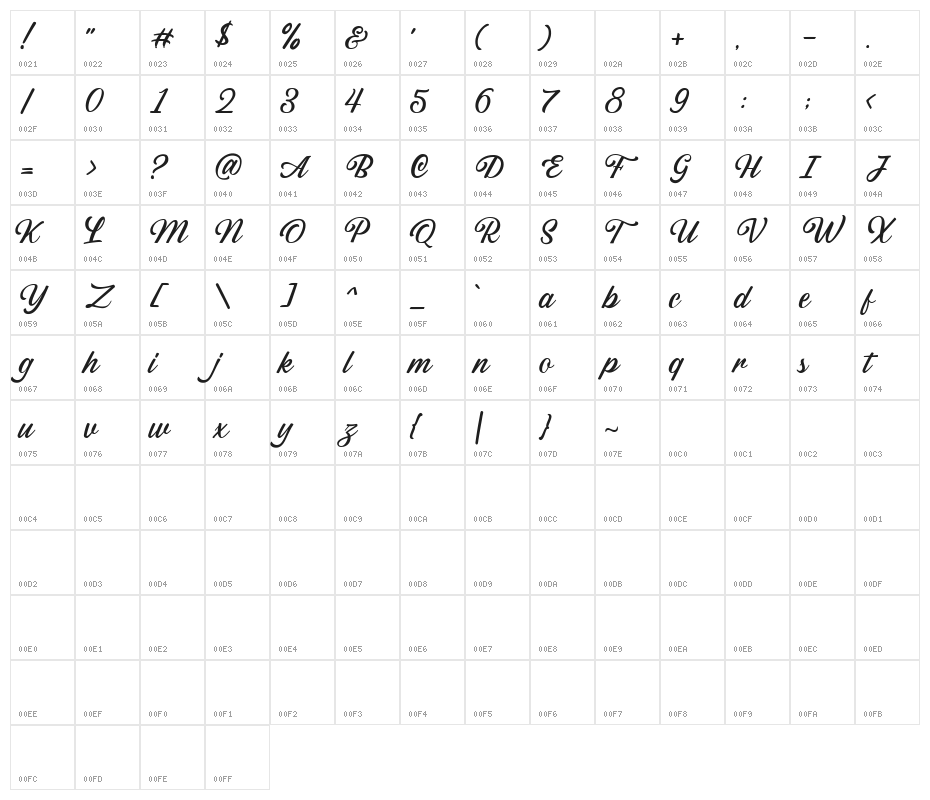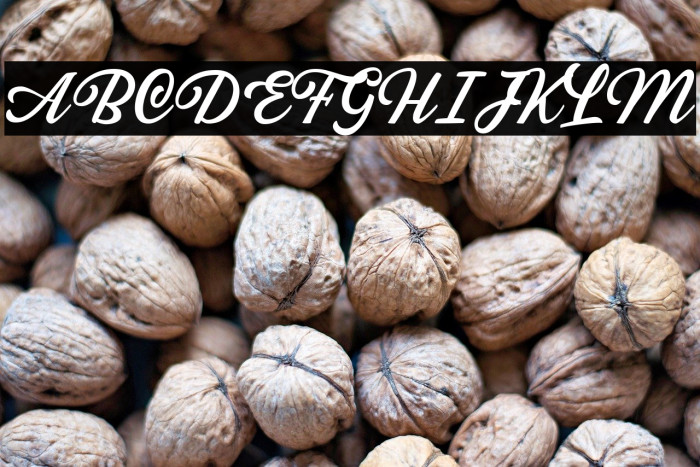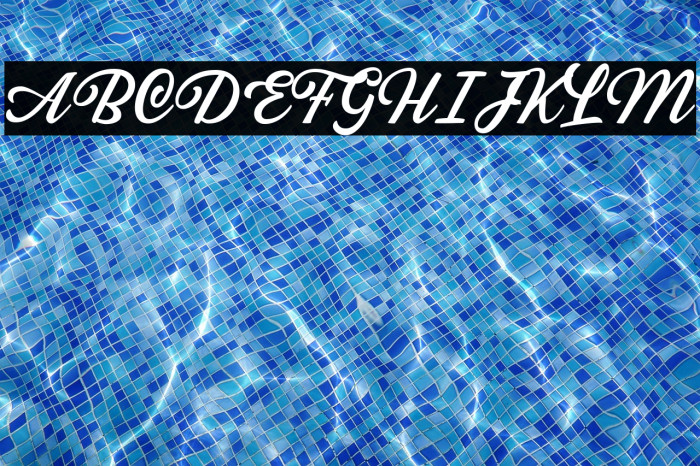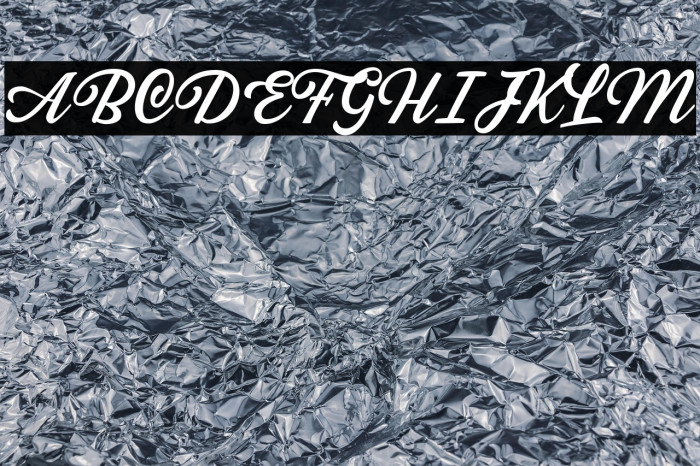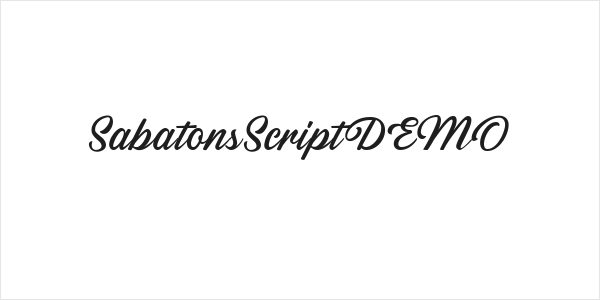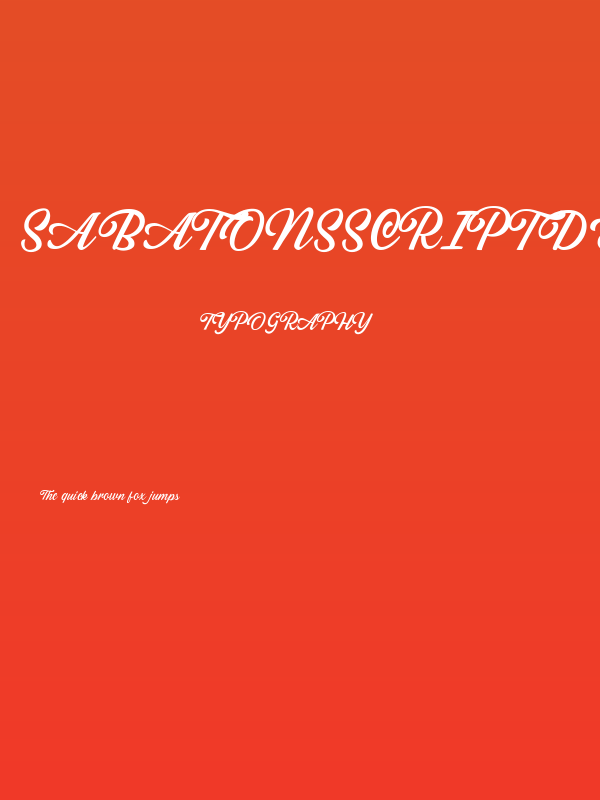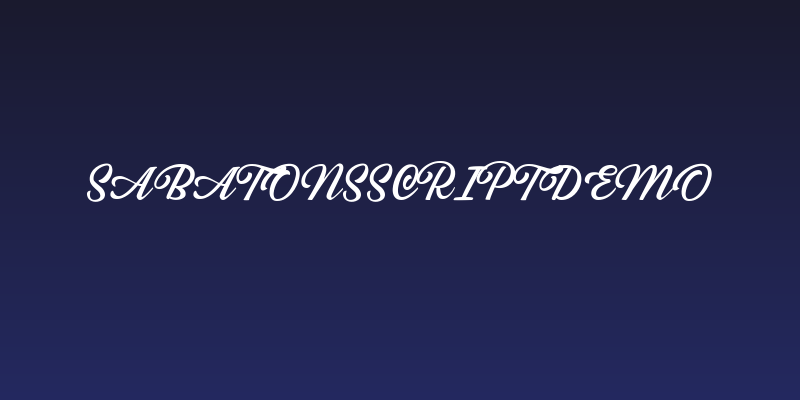
SabatonsScriptDEMO Font
SabatonsScriptDEMO Description
This elegant script font features a flowing, cursive style that mimics the fluidity of handwritten text. The characters are connected, creating a seamless and sophisticated appearance. The uppercase letters are slightly larger and more ornate, while the lowercase letters maintain a consistent and graceful form. The numerals are designed to match the script style, ensuring a cohesive look across all characters. Special characters are included, each crafted with the same attention to detail and elegance. This font is ideal for projects that require a touch of class and sophistication.
| Overall Style | Elegant, Classic |
| Use Case | Logos, Invitations, Decorative text |
| Proposed Projects | Ideal for wedding invitations, elegant branding, greeting cards, and personal stationery. |